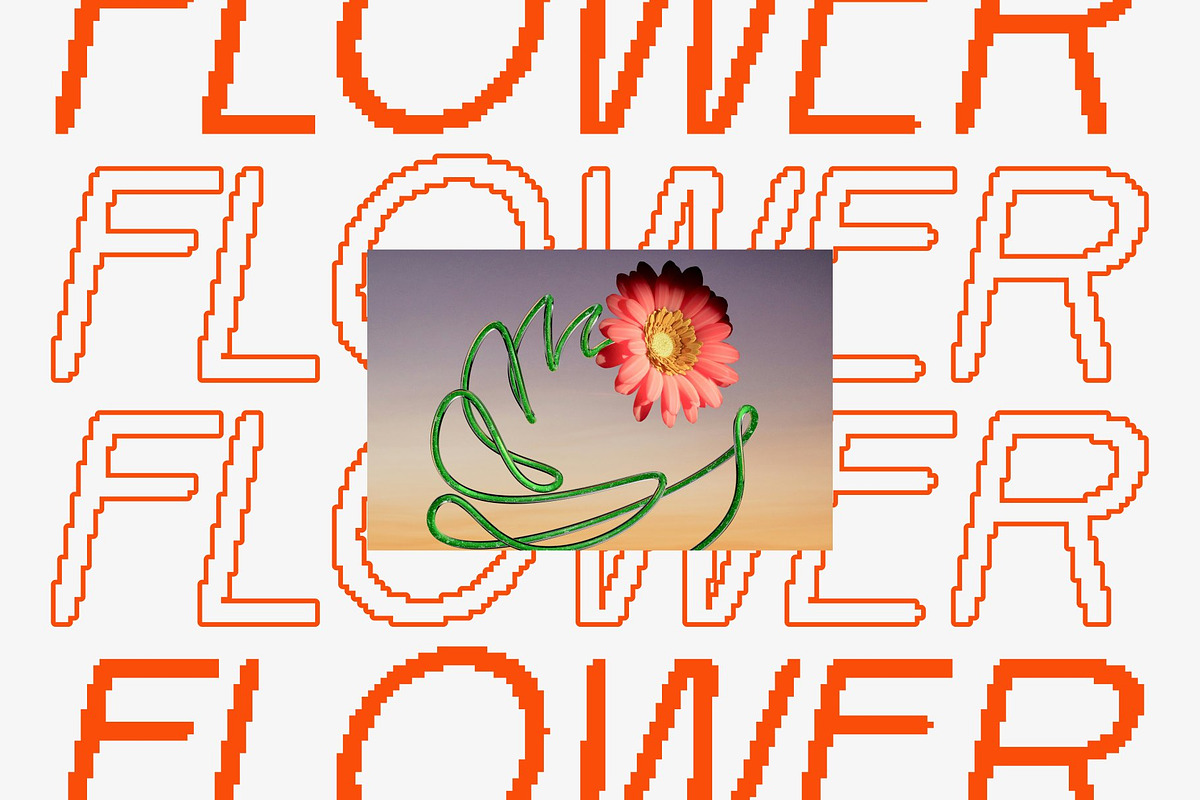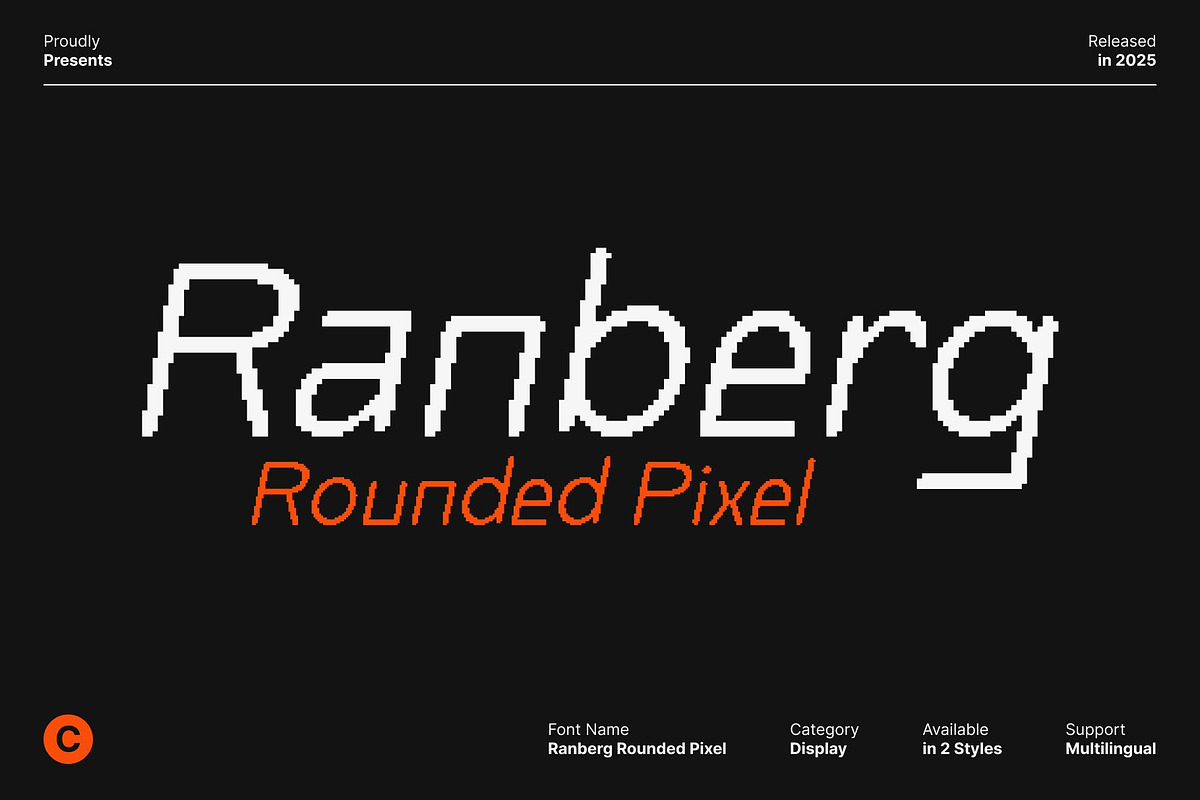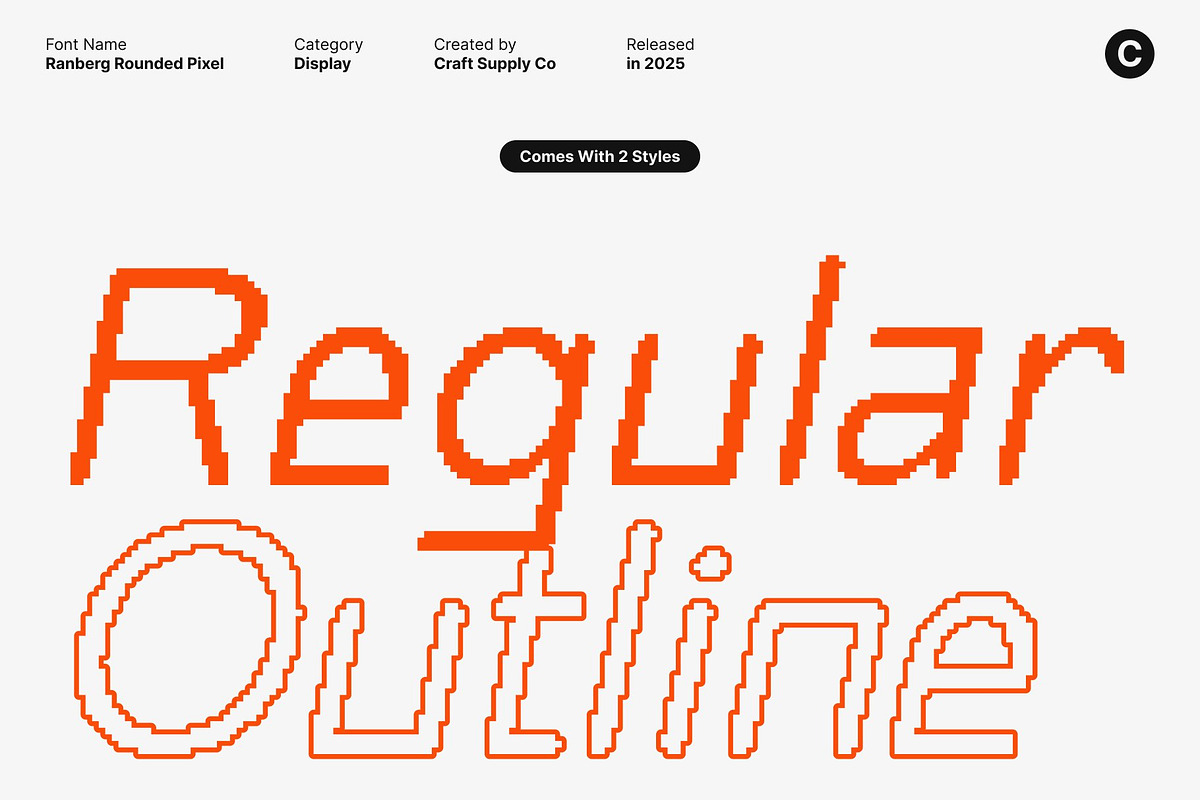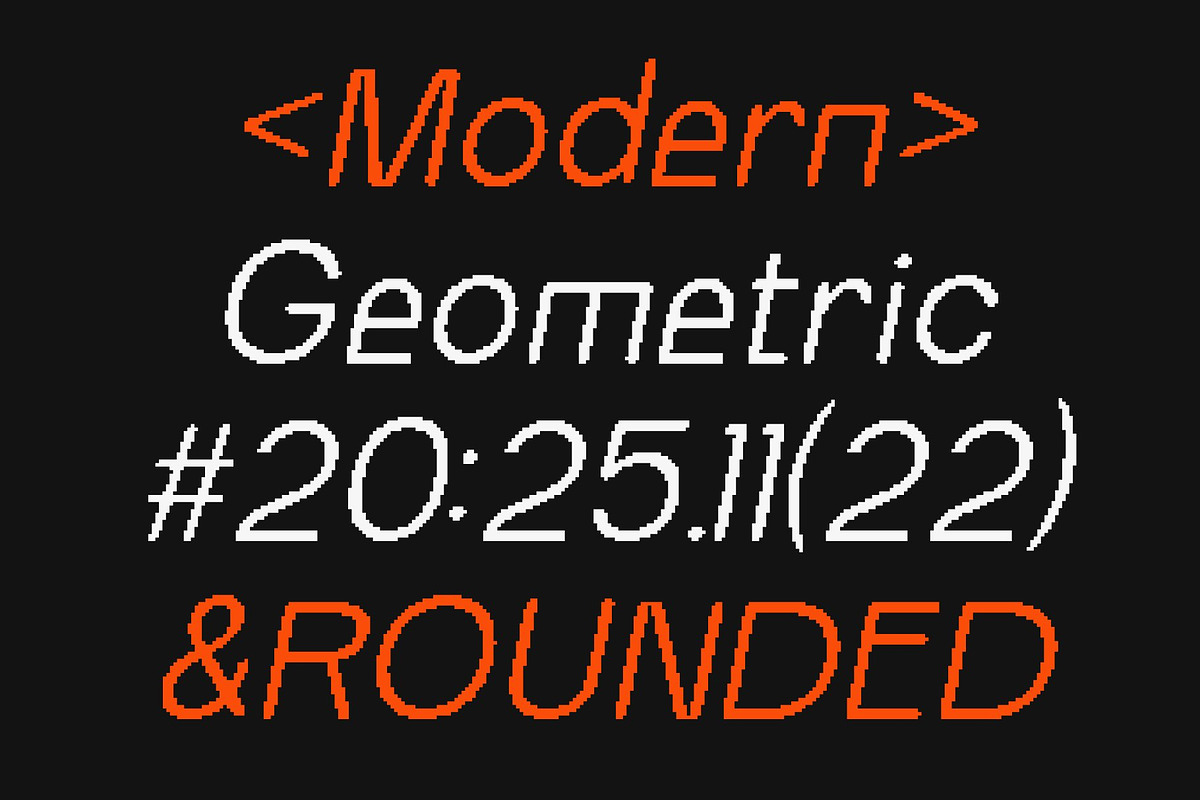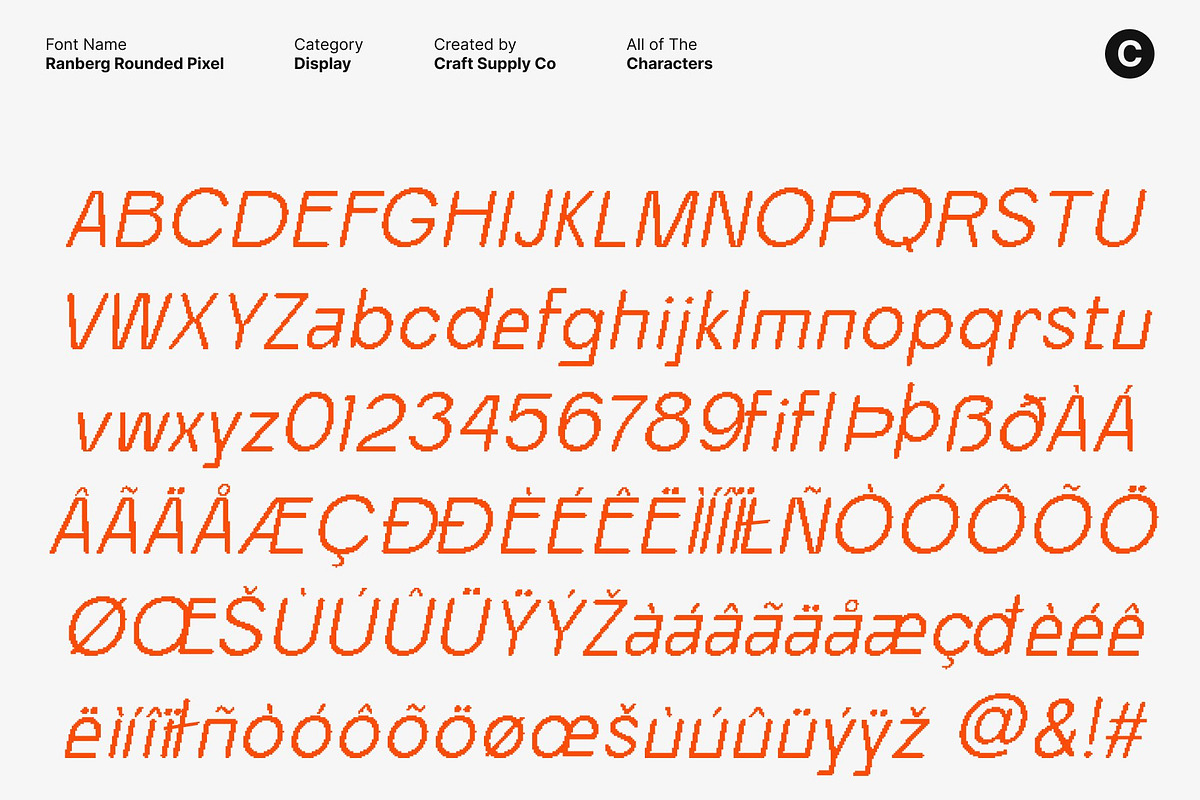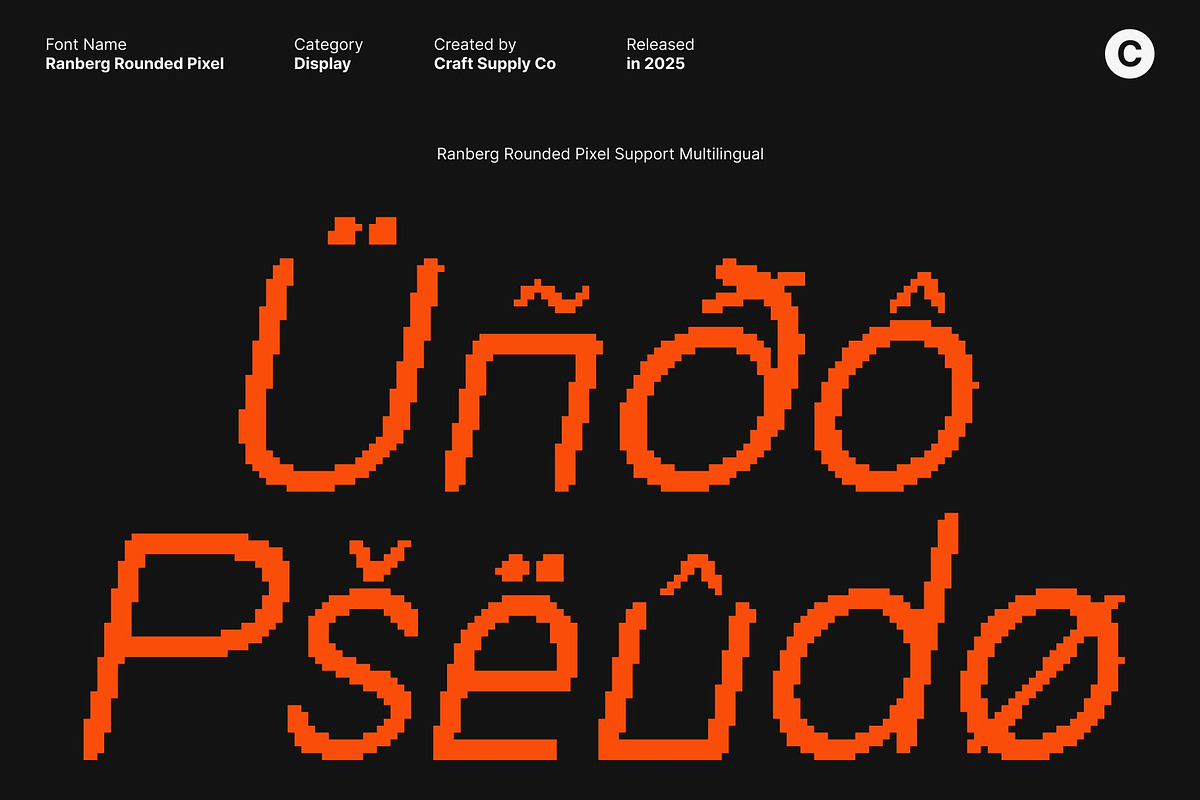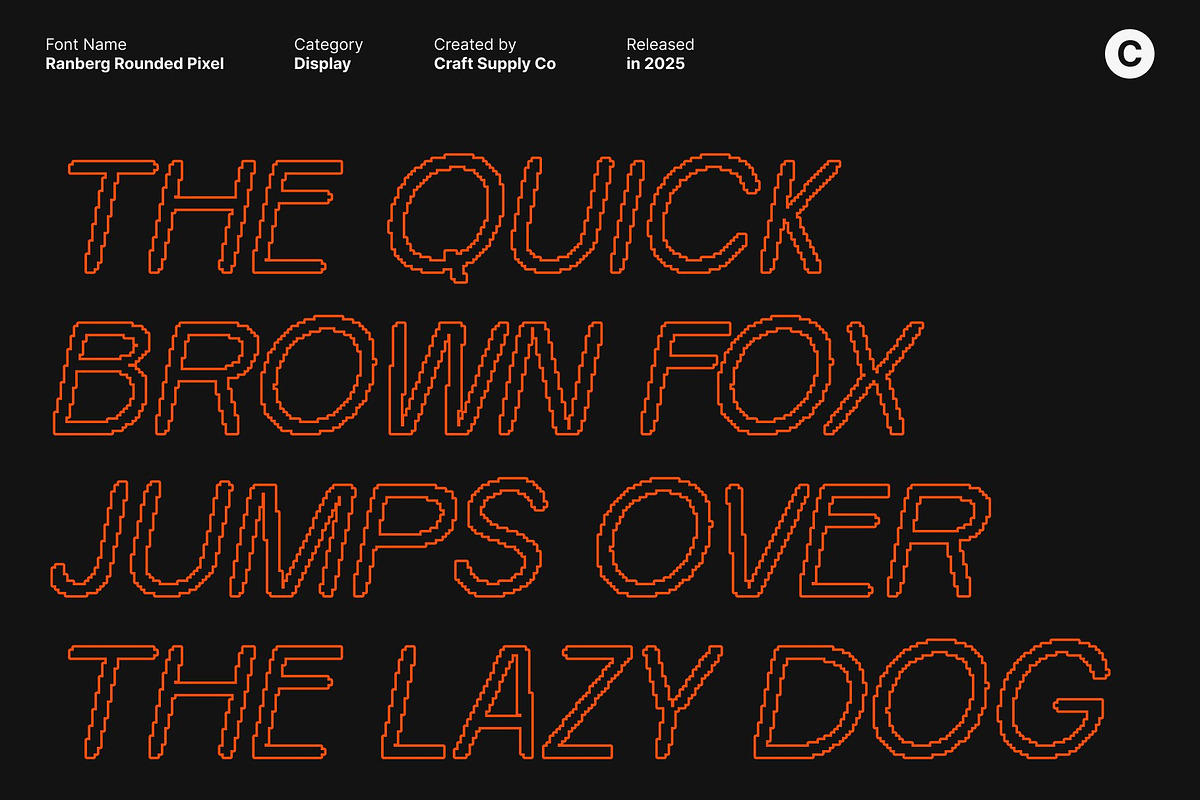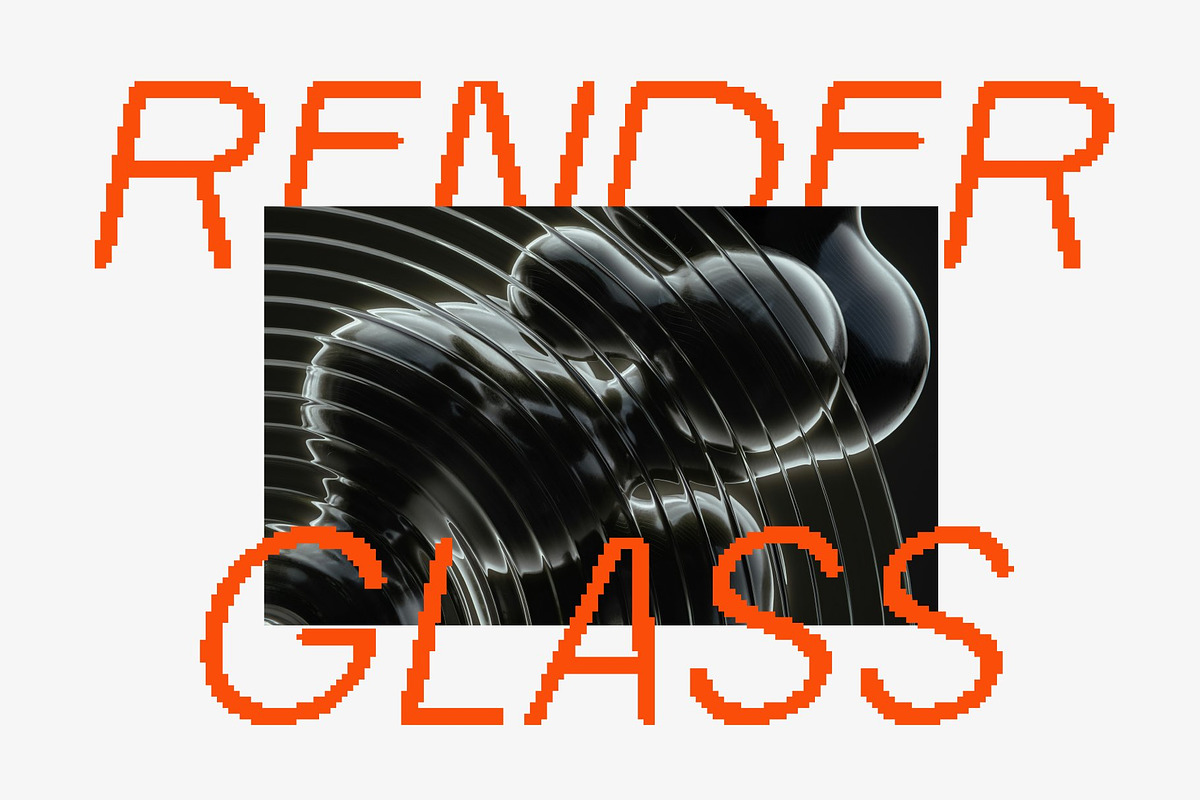
Ranberg Rounded Pixel
Ranberg Rounded Pixel – Modern Sans Serif with Industrial Pixel Edge
Industrial Strength Meets Experimental Design This is a modern sans serif font that fuses industrial robustness with experimental creativity. Its unconventional geometry and bold forms make it ideal for designers looking to craft layouts with strong visual impact. Perfect for editorial design, posters, and graphic projects, this font conveys confidence, innovation, and modernity in every character.
Unconventional Geometry for Distinctive Visual Appeal The defining feature of this font is its unique geometric construction. Rounded yet structured, each character exhibits an industrial aesthetic combined with contemporary design sensibilities. This balance of solidity and creativity ensures your compositions stand out while maintaining clarity and professionalism.
Pixel Texture Adds Modern Digital Flair Enhanced with a subtle pixel effect, this font introduces a digital-inspired edge that complements its industrial foundation. The pixel texture adds depth, personality, and a contemporary twist, transforming each letter into a statement of modern design. It bridges traditional sans serif clarity with digital stylistic trends for a fresh, creative look.
Perfect for Editorial Layouts, Posters, and Creative Projects This font excels in applications that require both innovation and readability. Its experimental geometry and pixel-infused style make it ideal for bold editorial spreads, attention-grabbing posters, branding concepts, and digital design projects.
- Ranberg Rounded Pixel Regular
- Ranberg Rounded Pixel Outline